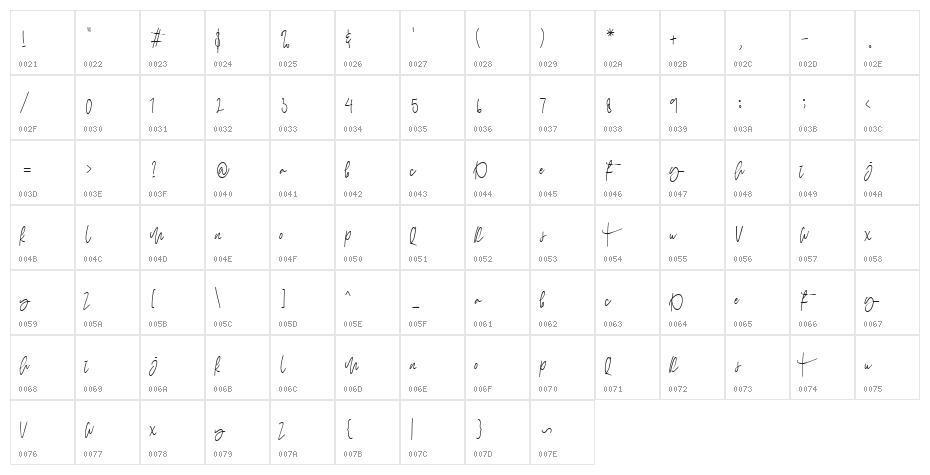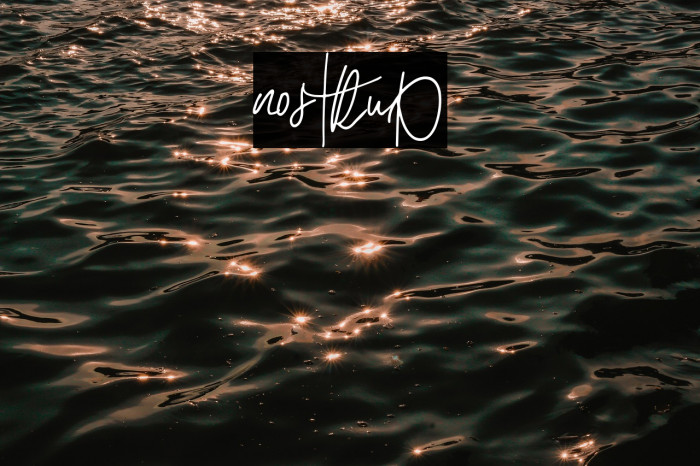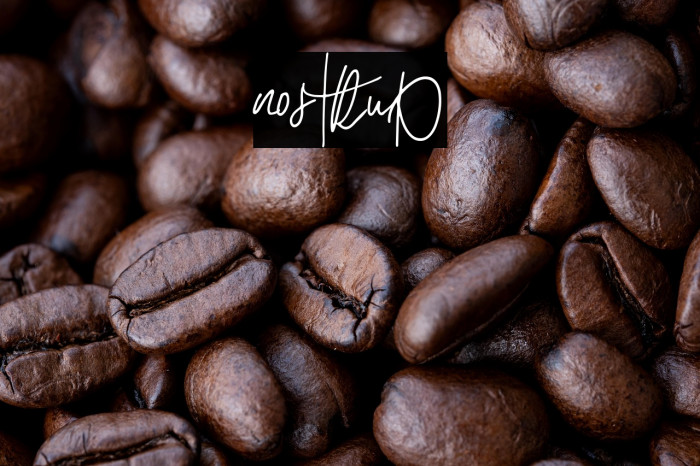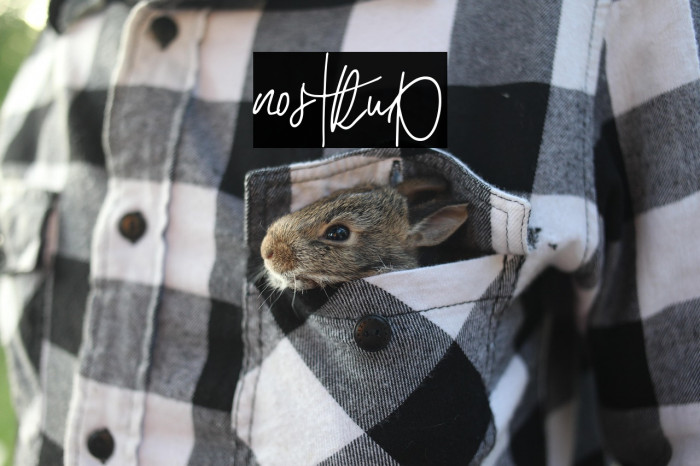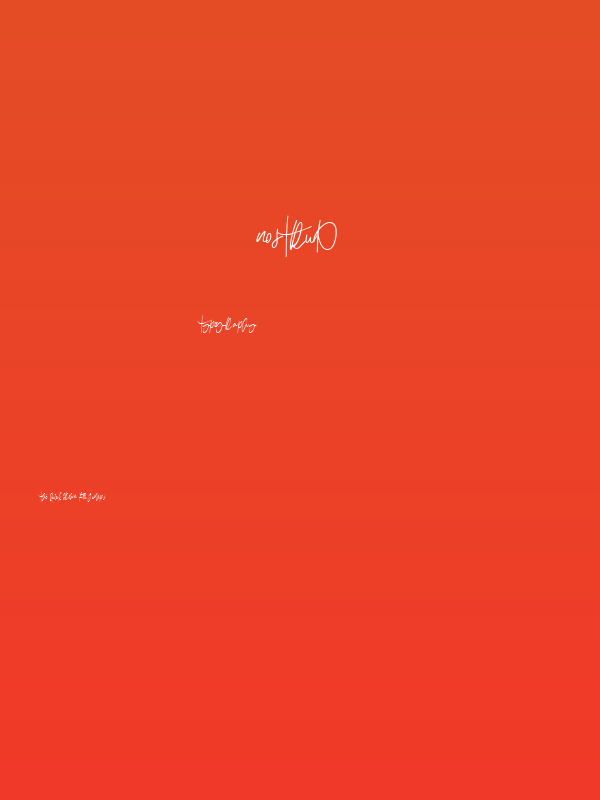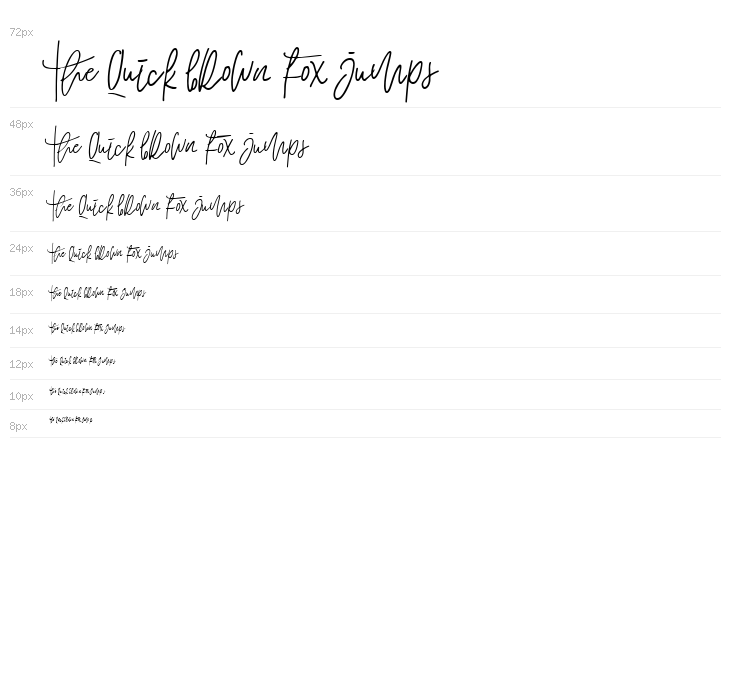
nostrud Font
nostrud Description
A handwritten, cursive font with a playful and artistic style. The letters are connected with varying stroke thickness, giving it a dynamic and personal feel.
| Use Case | Logos, Invitations, Personal notes |
| Proposed Projects | Greeting cards, invitations, personal branding. |